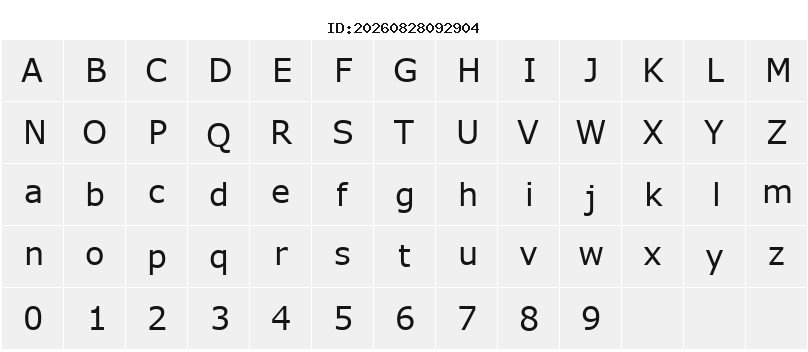
TrSah Verdana Preview
• Font Name: TrSah Verdana
• Full Font Name: TrSah Verdana
About TrSah Verdana.ttf
TrSah Verdana.ttf is a modern, elegant sans-serif font designed for ultimate readability and visual harmony. Perfect for branding, headlines, web design, and print materials.